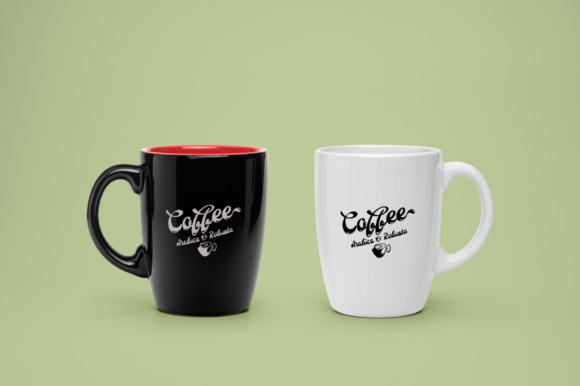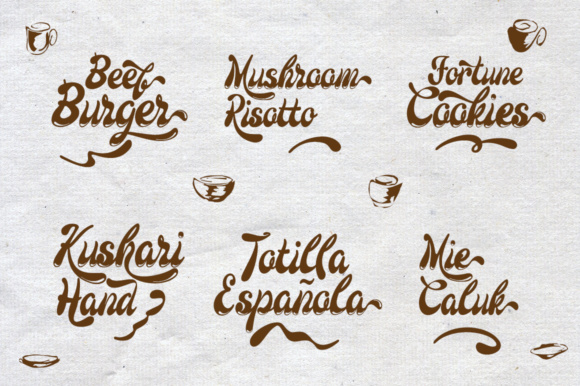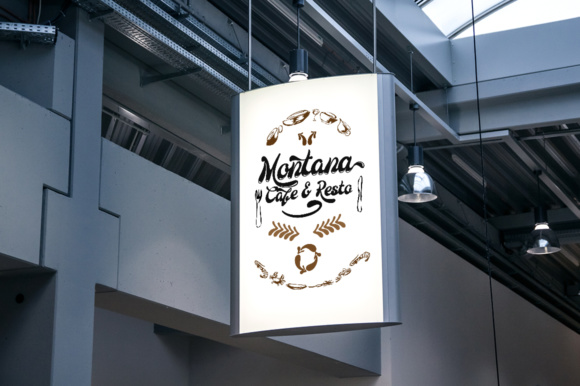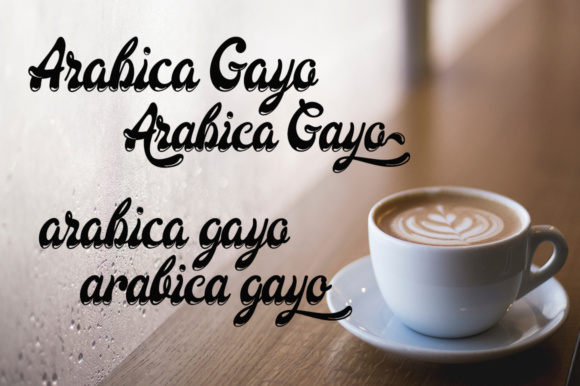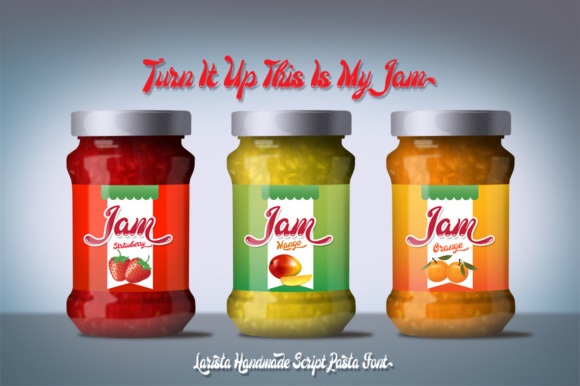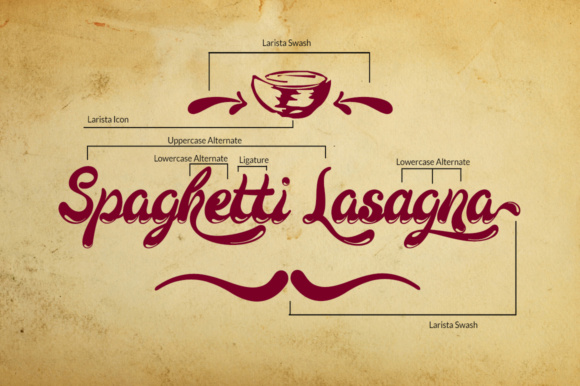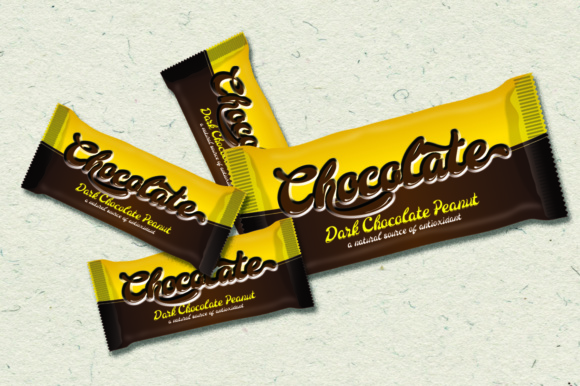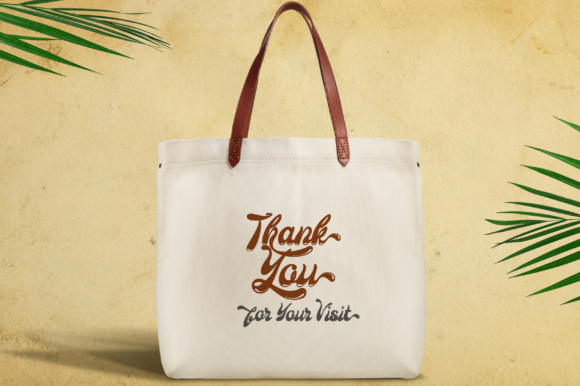
Larista Font
About Larista Font
Larista is a gorgeous script font, ideal for use in displays. This font comes with a retro appeal with a bubbliness to it, and can add a ton of character to your projects.